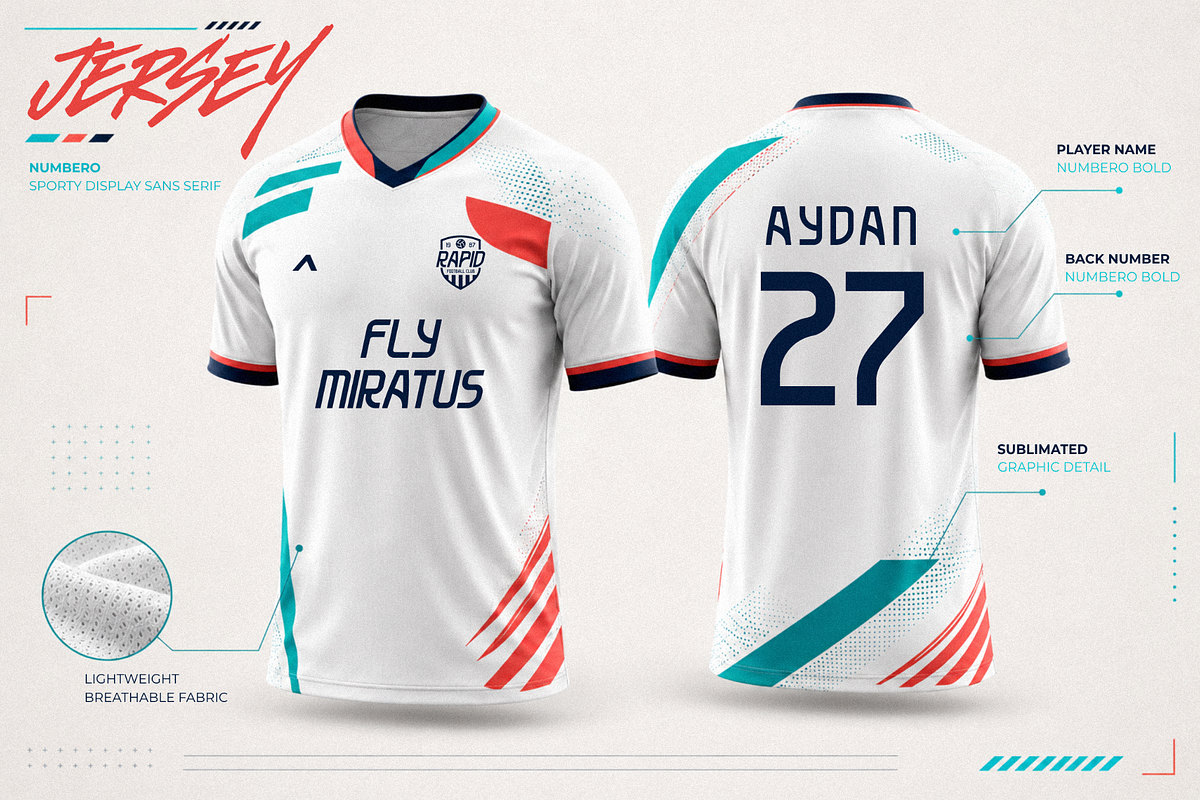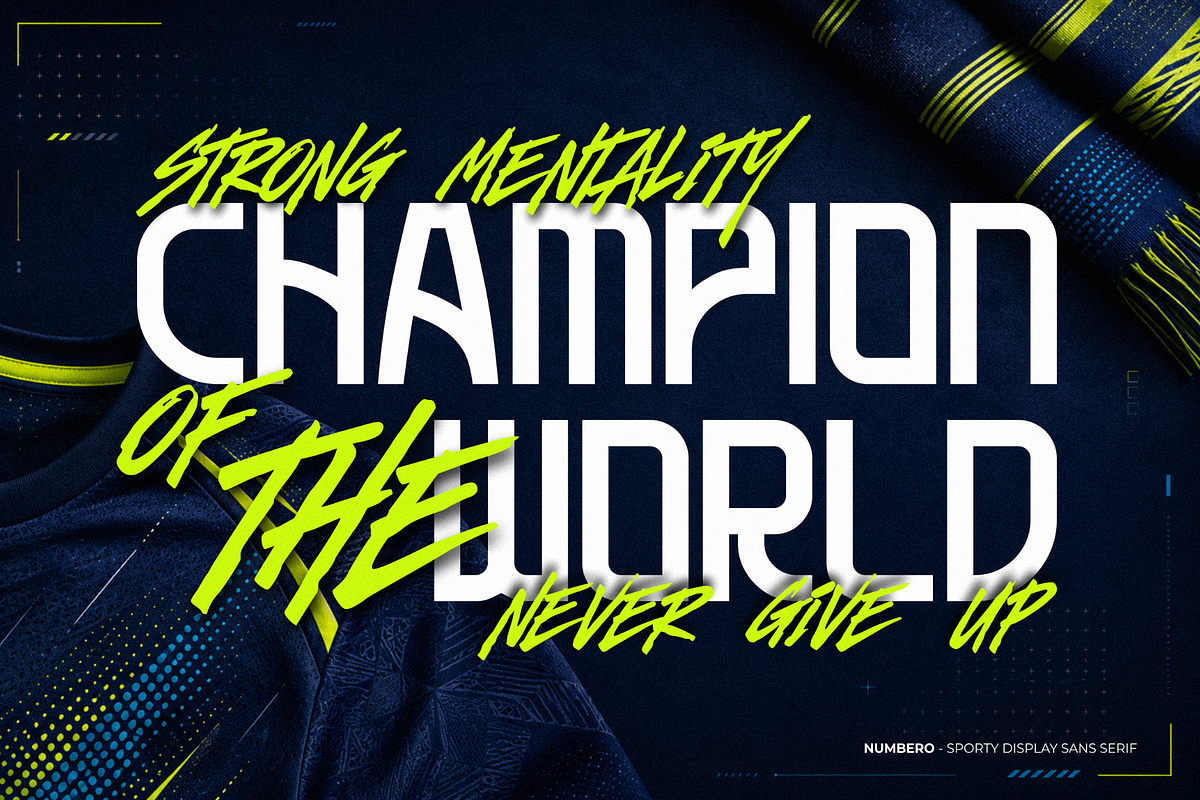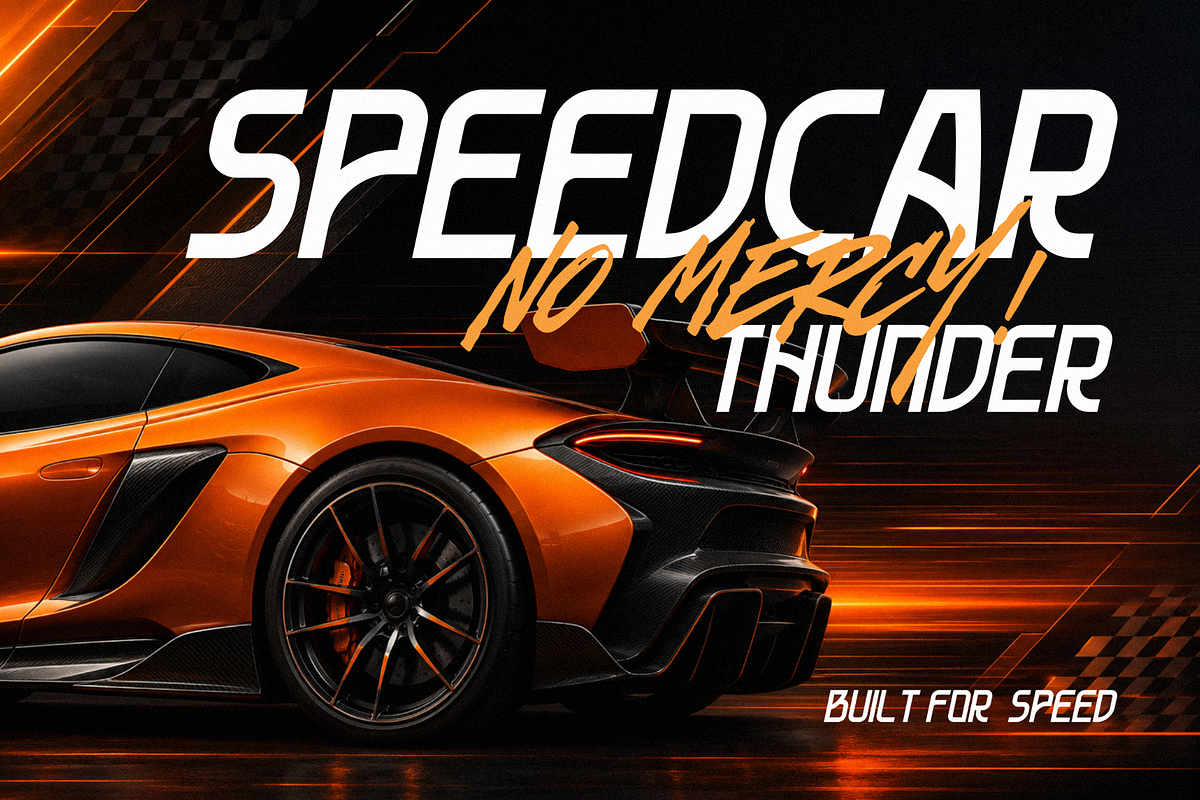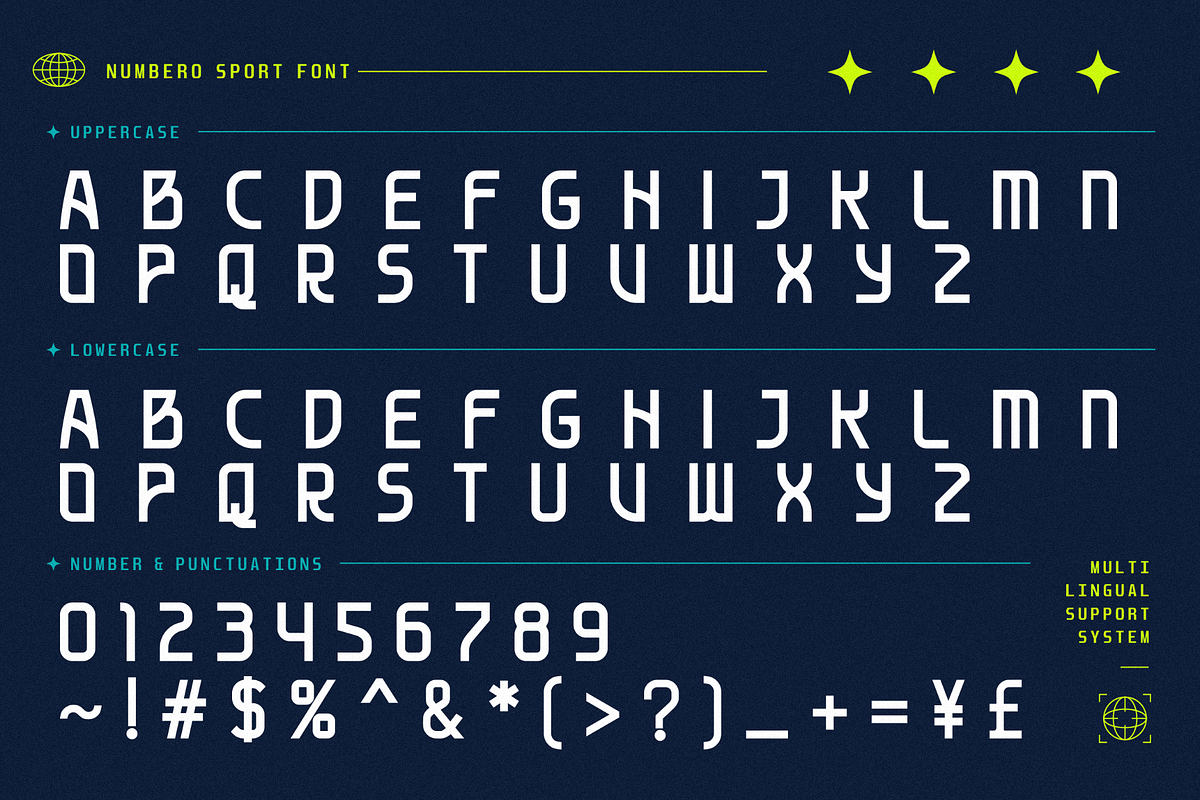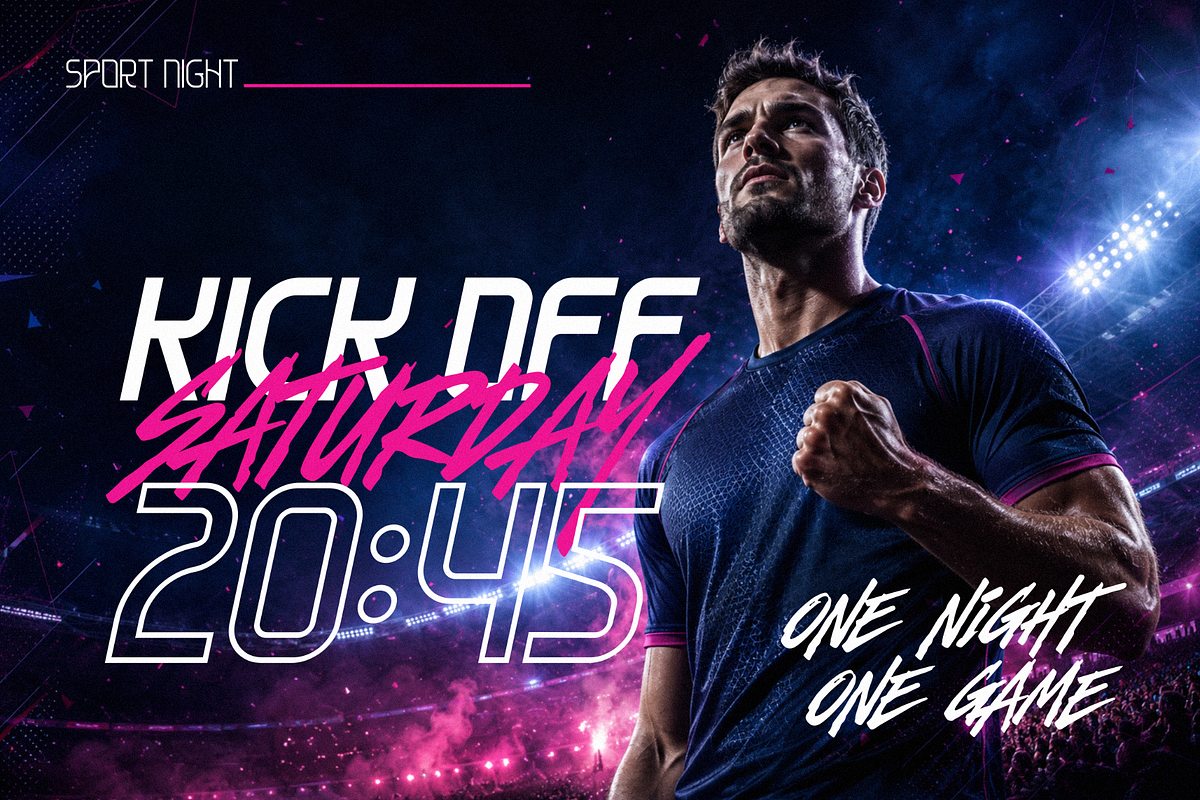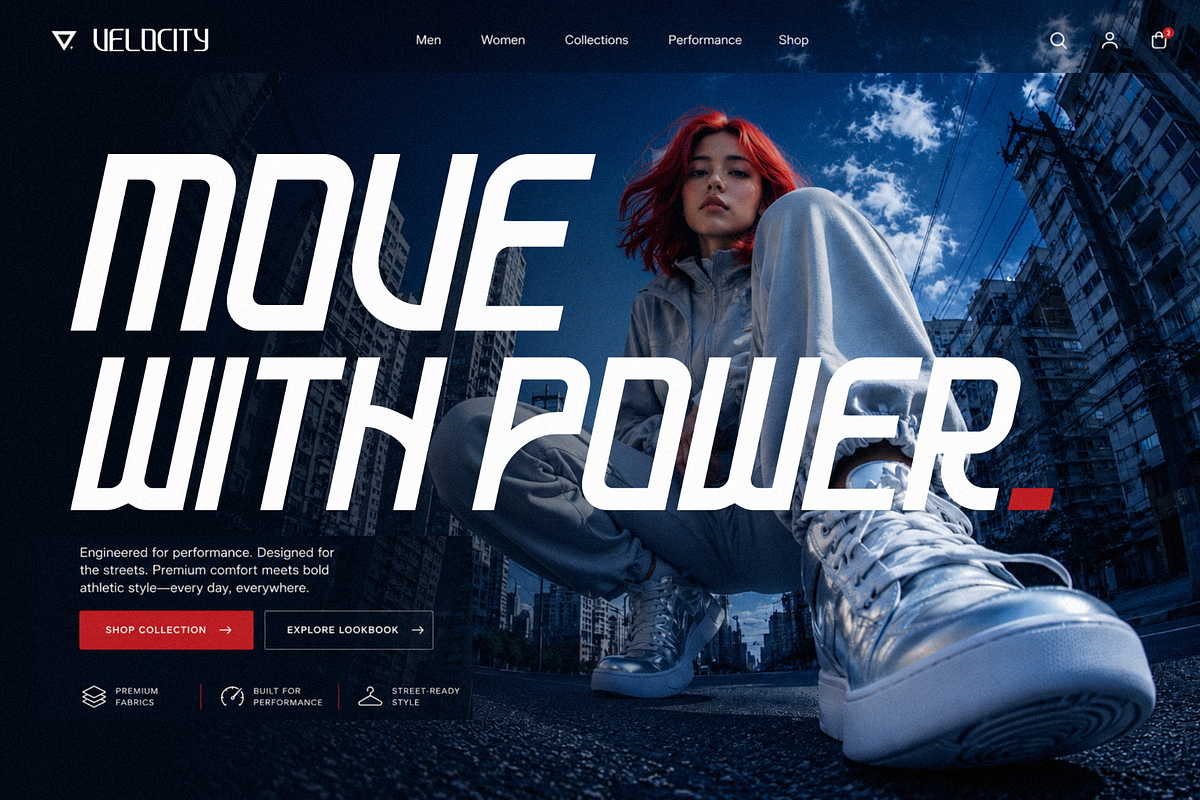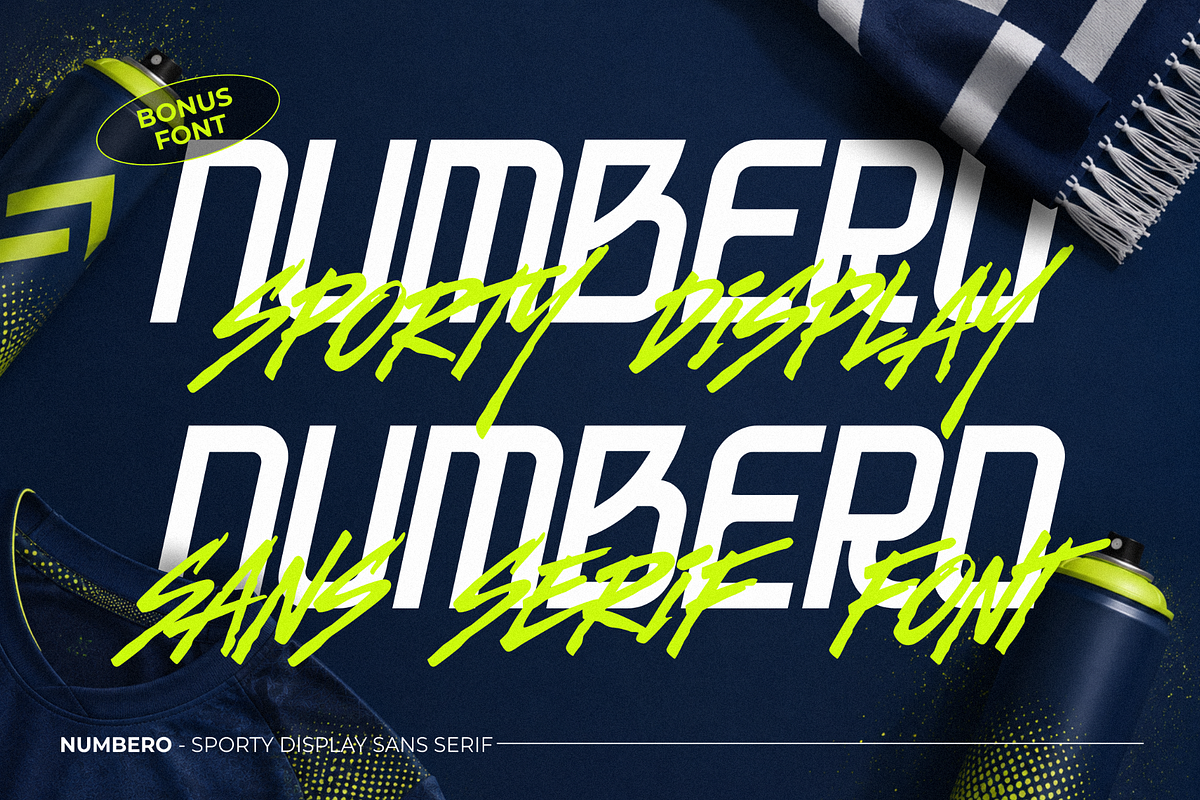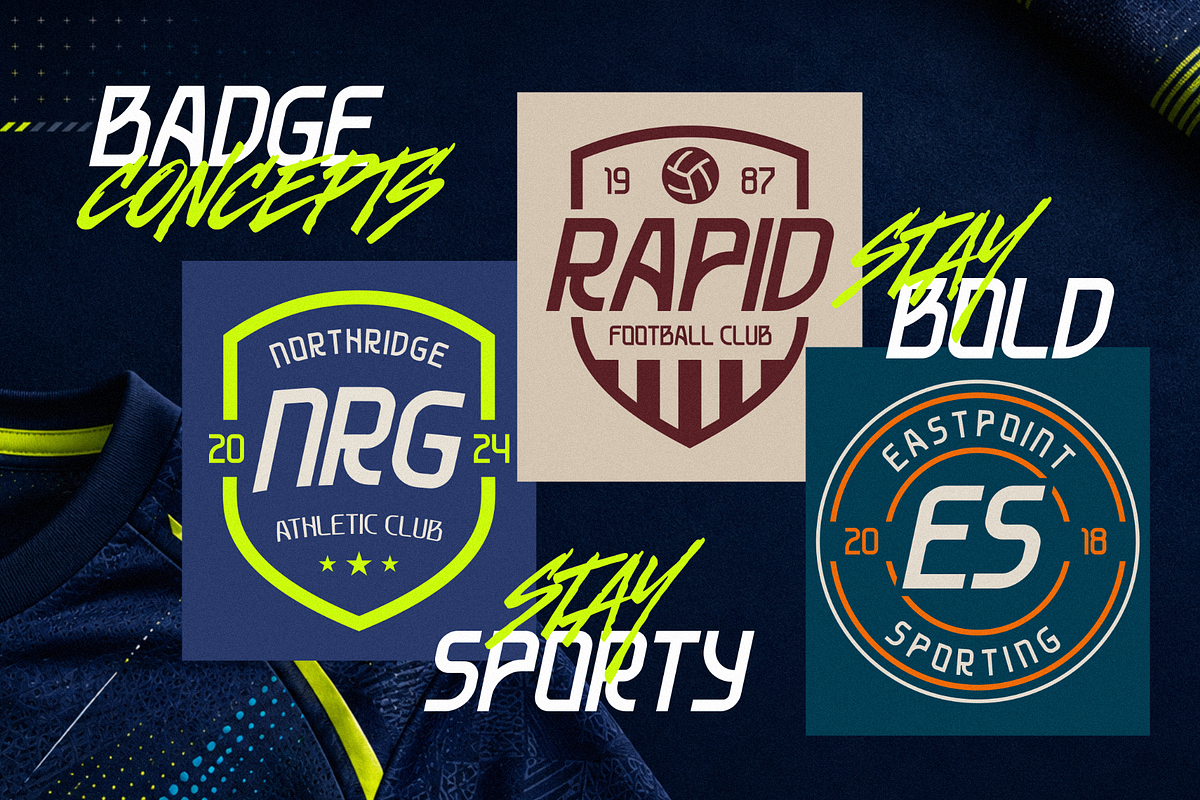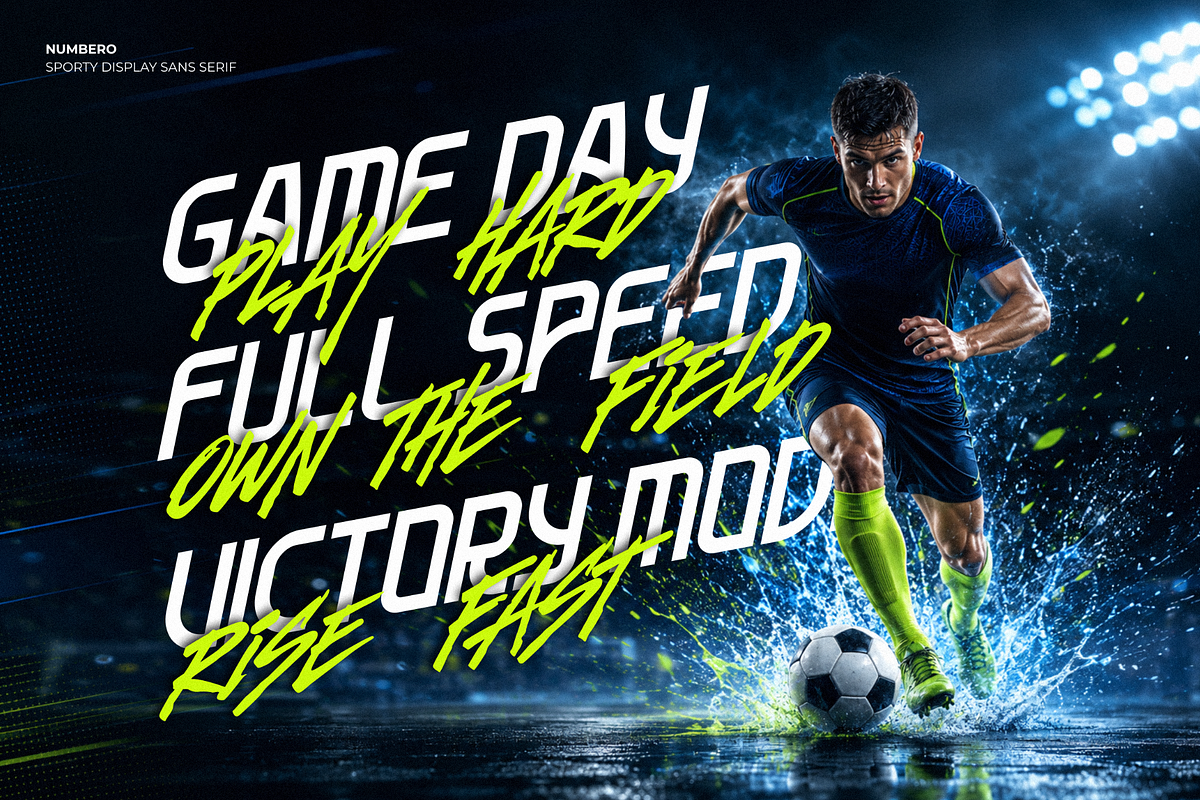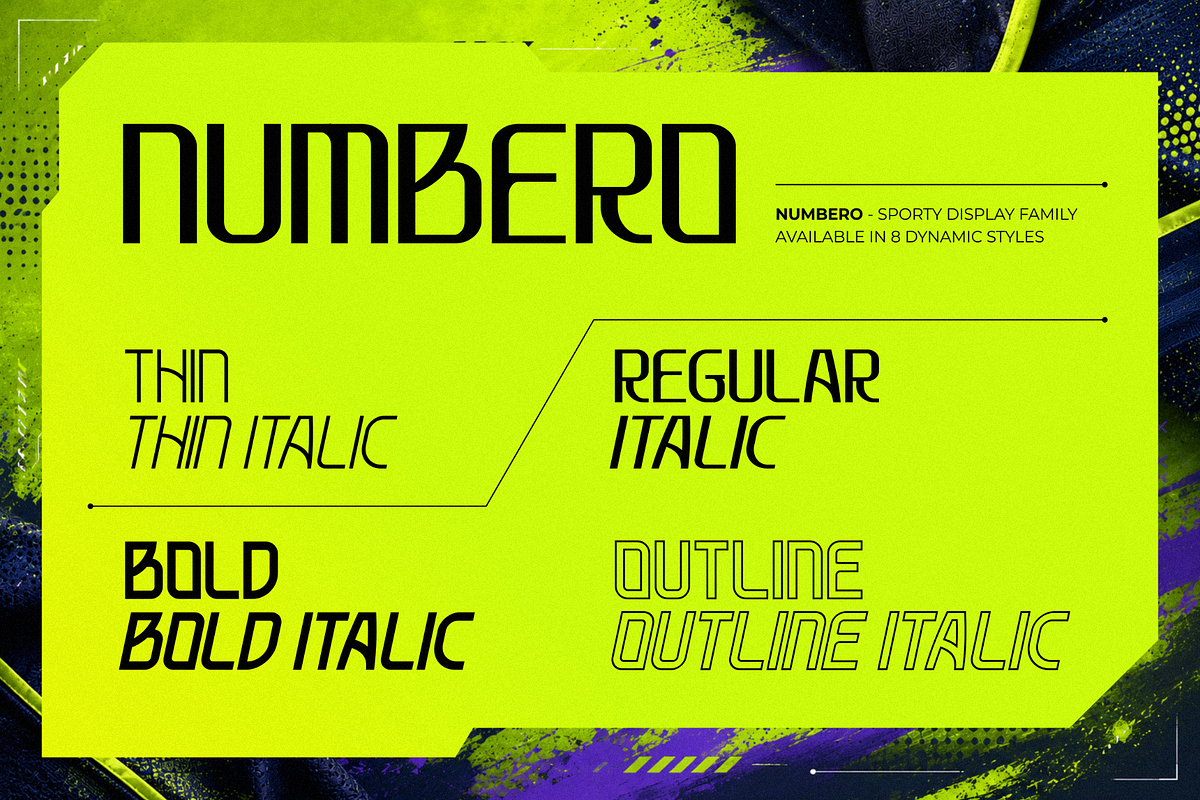
Numbero – Sporty Sans Serif
Give your projects a bold athletic identity with Numbero – Sporty Sans Serif, a versatile display typeface inspired by modern sports graphics and competitive energy. Designed with strong geometric forms and clean proportions, Numbero delivers clear readability while maintaining a dynamic personality that stands out across digital and print media.
Whether you're creating team graphics, esports visuals, event posters, scoreboards, video thumbnails, fitness promotions, sports tournaments, YouTube covers, or energetic social media content, Numbero provides the flexibility to adapt to a wide variety of layouts. The font family includes multiple weights, italic styles, and outline versions, making it easy to build eye-catching typography with depth and contrast.
Its bold letterforms and balanced spacing make headlines instantly recognizable, while the lighter weights are suitable for supporting text and secondary titles. The outline styles offer additional creative possibilities for layered typography, outlined titles, and impactful compositions.
Numbero is built for designers who need a complete display font family instead of a single style. From large-format banners to digital graphics, every weight works together seamlessly, giving you greater control over hierarchy and visual consistency.
* Sporty Sans Serif Style
* All Caps Character Set
* Multilingual Support
* Eight Font Styles
* Thin, Regular & Bold Weights
* Matching Italic Styles
* Outline Versions Included
Numbero offers more than a single bold display font—it provides an entire system for creating energetic typography. Designers can combine the Thin, Regular, Bold, and Outline styles to establish clear visual hierarchy without switching to another typeface. This consistency helps projects maintain a unified appearance across posters, presentations, digital content, and promotional materials.
The all-caps construction creates a strong presence for titles and headlines, while the included numbers and symbols make Numbero especially useful for scoreboards, statistics, schedules, competitions, tournaments, and numeric-focused graphics. Multilingual support also allows the font to be used in projects intended for broader international audiences.
Because every style shares the same design language, mixing outline and solid versions creates layered text effects with minimal effort. Italic styles introduce movement and speed, making them suitable for action-oriented compositions and dynamic layouts.
Whether you're working on sports events, gaming graphics, fitness campaigns, racing visuals, competition posters, streaming overlays, or promotional materials, Numbero provides the versatility needed to create consistent typography across multiple formats.
Typography plays a major role in communicating energy and impact. Numbero – Sporty Sans Serif gives you a complete family of styles that helps organize information, highlight key messages, and create memorable titles with confidence. With multiple weights, italics, outline versions, multilingual support, and complete desktop and web formats, Numbero is ready to become a reliable display typeface for a wide range of creative projects.